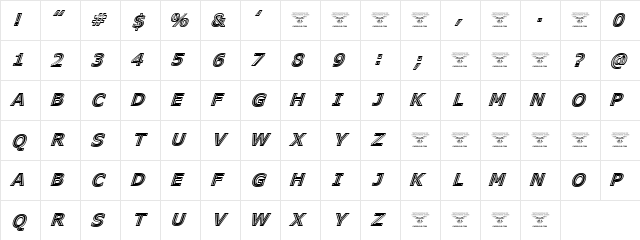
Genesee St Italic
Design Context for Genesee St Typeface
Genesee St offers clean, dependable letterforms without strong stylistic allegiance, making it a practical choice for designers who need flexibility. The dynamic lean of this cut emphasises speed and emphasis in any layout.
Pro Tip: Try Genesee St for annotation and caption copy alongside an upright companion — the contrast in angle creates a dynamic but ordered typographic system.